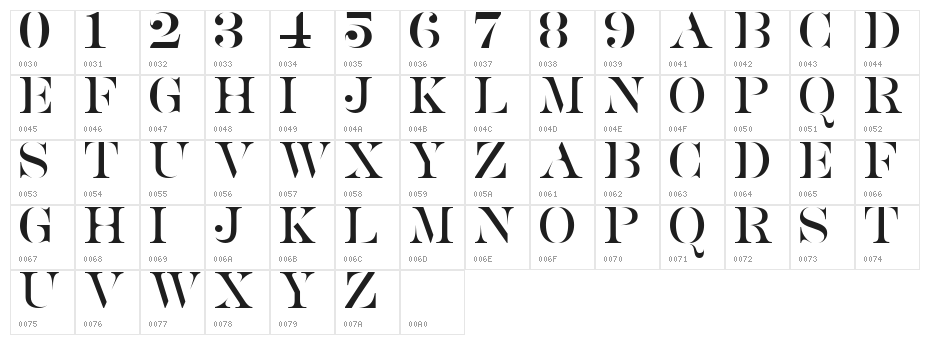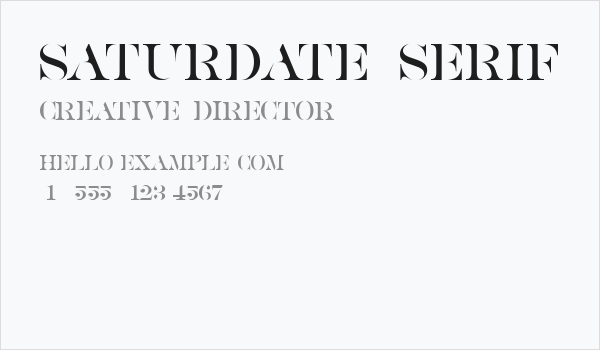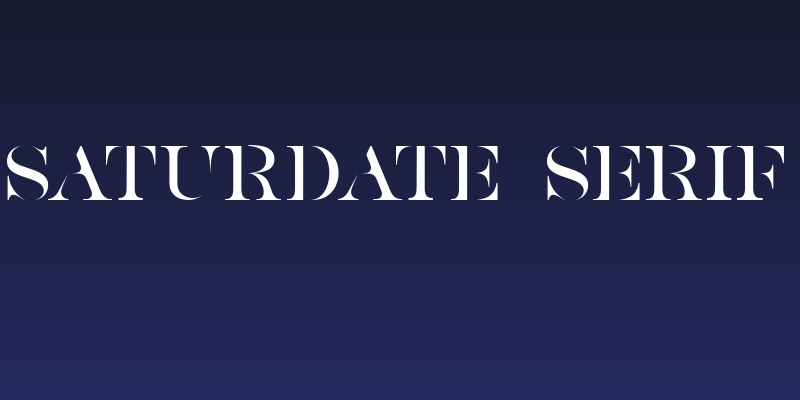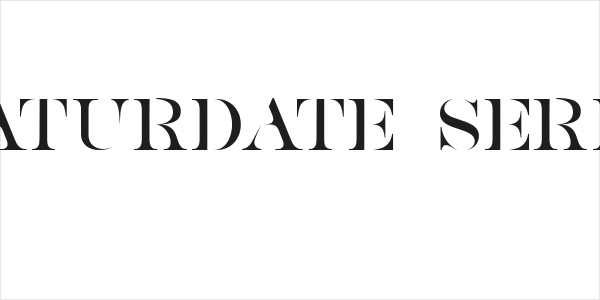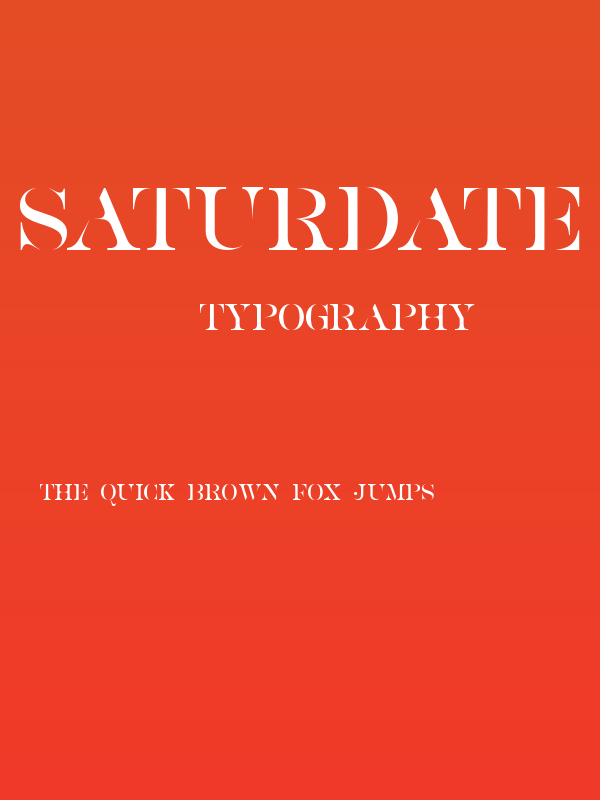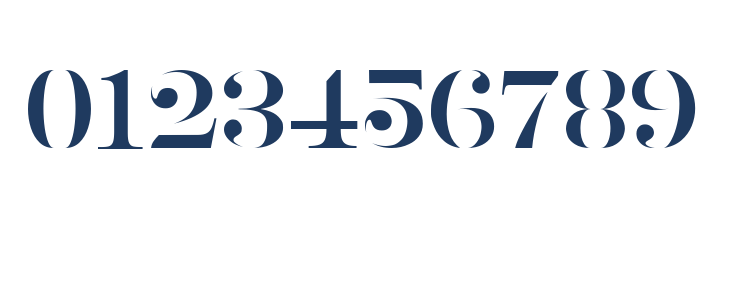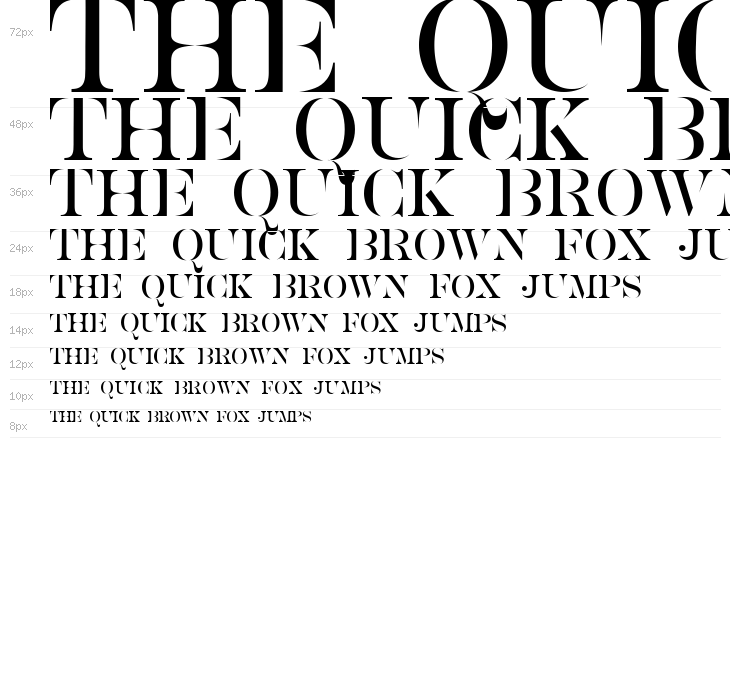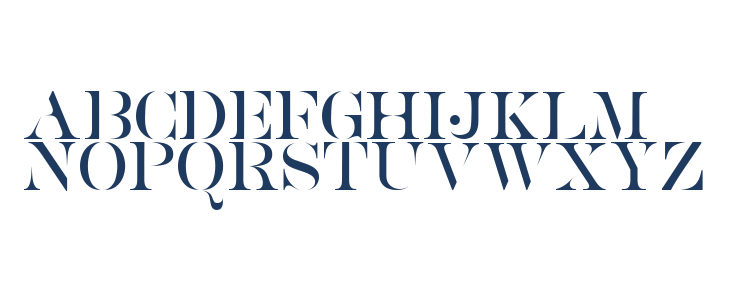
SATURDATE SERIF Font
SATURDATE SERIF Description
This font exhibits a bold and striking serif style, characterized by its high contrast between thick and thin strokes. The sharp, angular serifs and the dramatic cutouts within the letterforms create a modern and edgy appearance. The uppercase letters are particularly prominent, with a strong vertical emphasis that commands attention. The numerals share the same bold characteristics, ensuring consistency across all characters. This font's unique design makes it ideal for impactful headlines and branding projects where a strong visual statement is desired.
| Proposed Projects | Ideal for branding, magazine headlines, posters, and any design requiring a bold statement. |